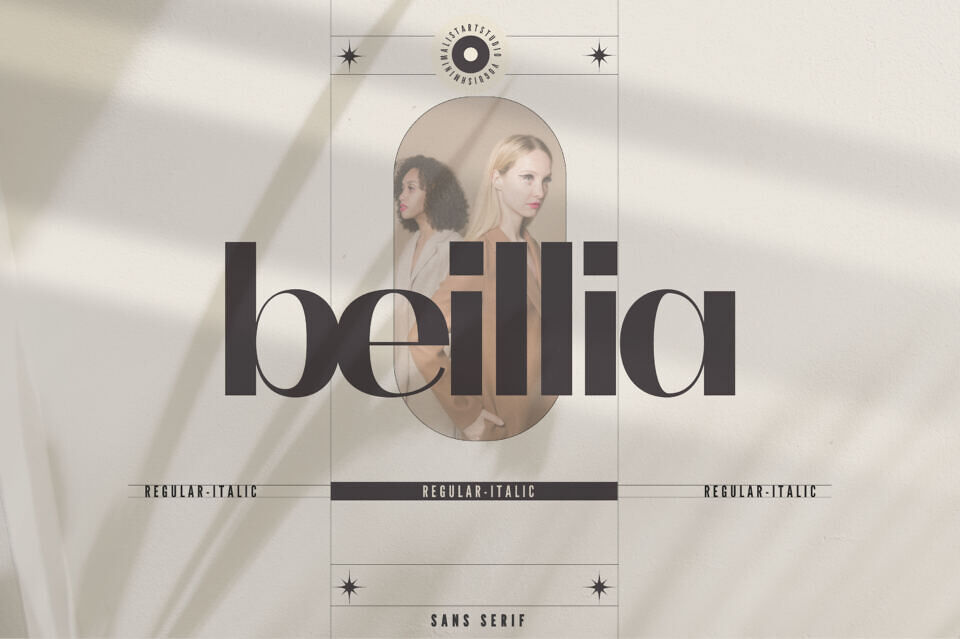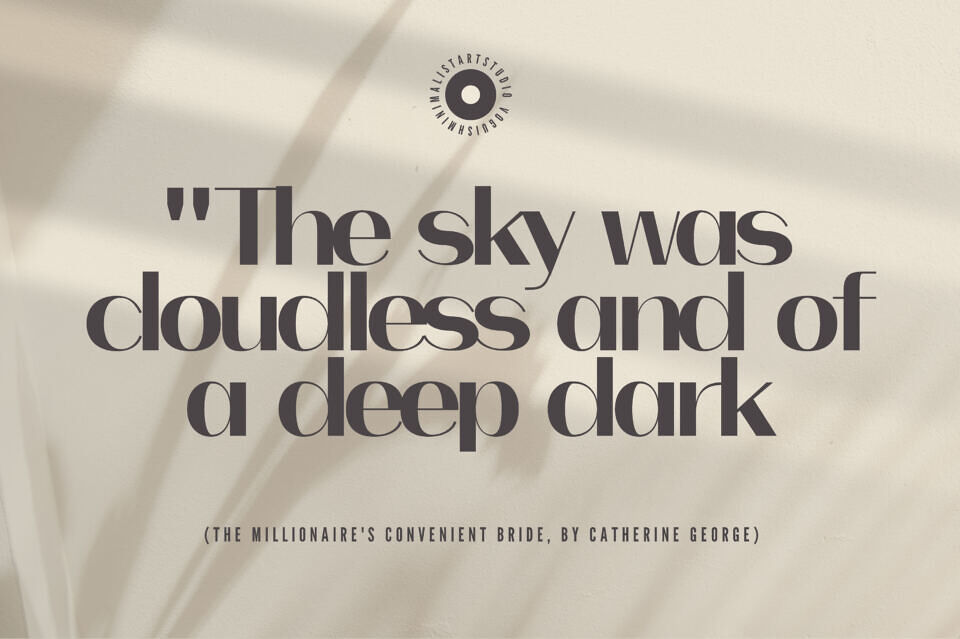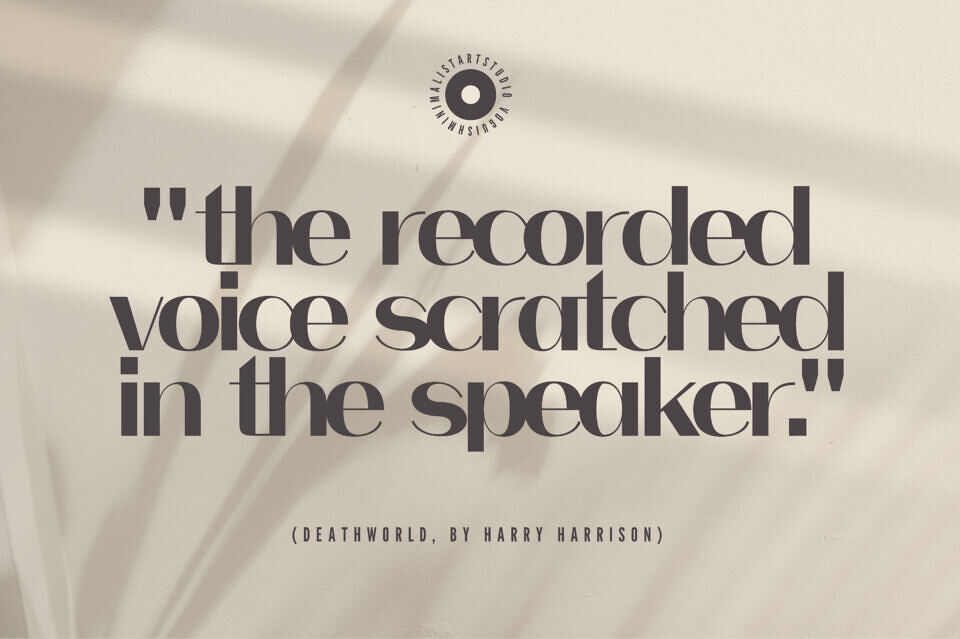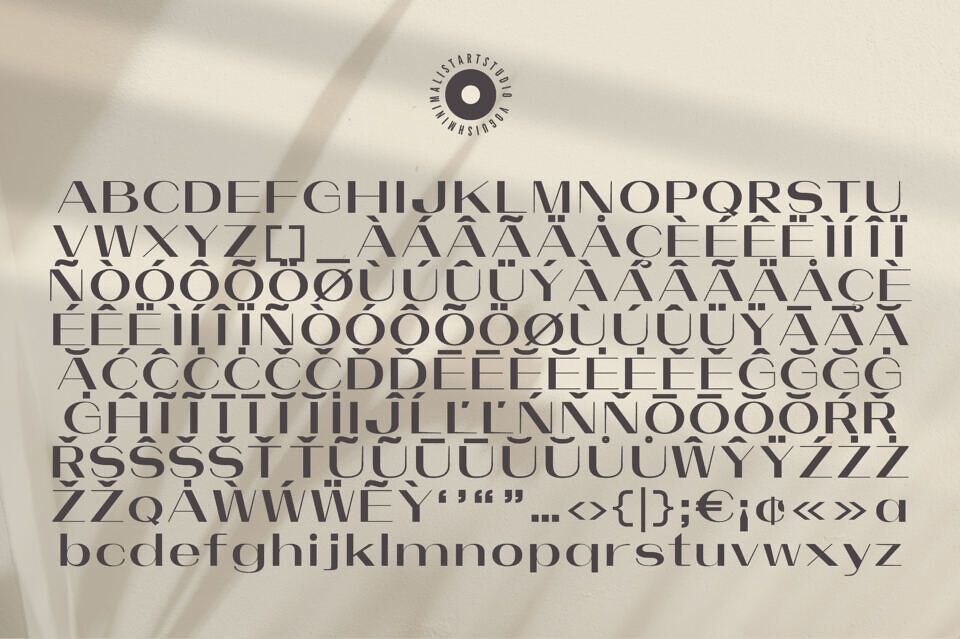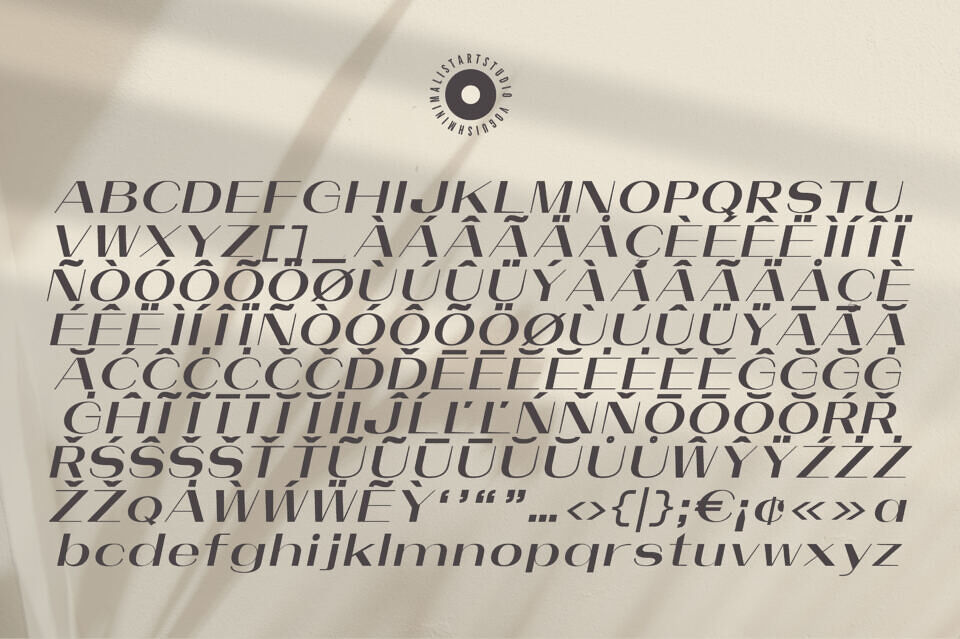
Beillia is a refined sans serif typeface that embodies elegance, style, and modern sophistication. With its clean lines and versatile design, it is ideal for logos, headlines, branding, and luxury marketing materials. Carefully crafted for balance and readability, Beillia offers multiple weights that pair seamlessly across print and digital platforms.
Its bold yet graceful character complements diverse design aesthetics, from high-end fashion campaigns to wedding invitations and corporate identities. Perfect for projects that demand impact and timeless appeal, Beillia elevates any creative work with a polished, professional look that leaves a lasting impression.